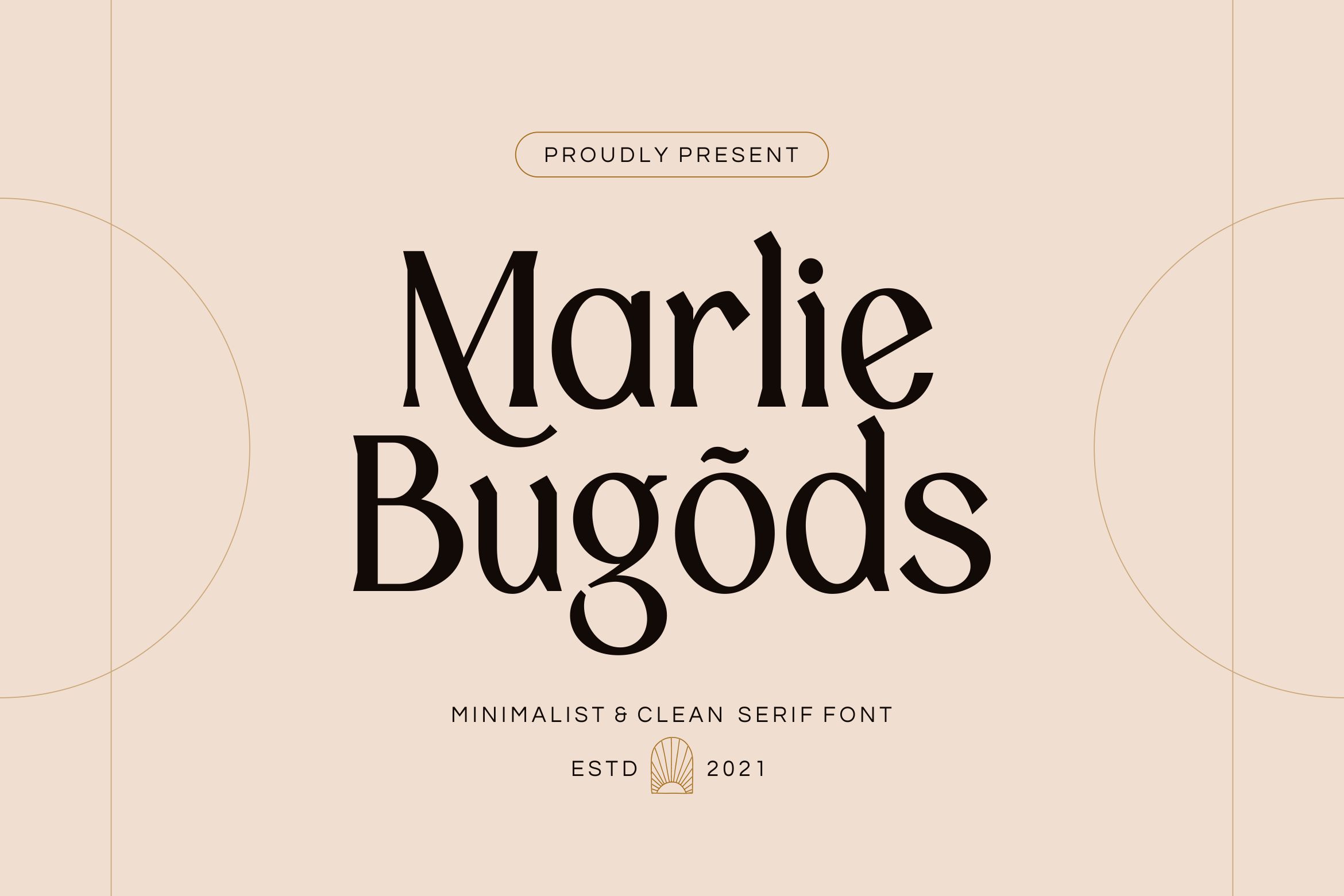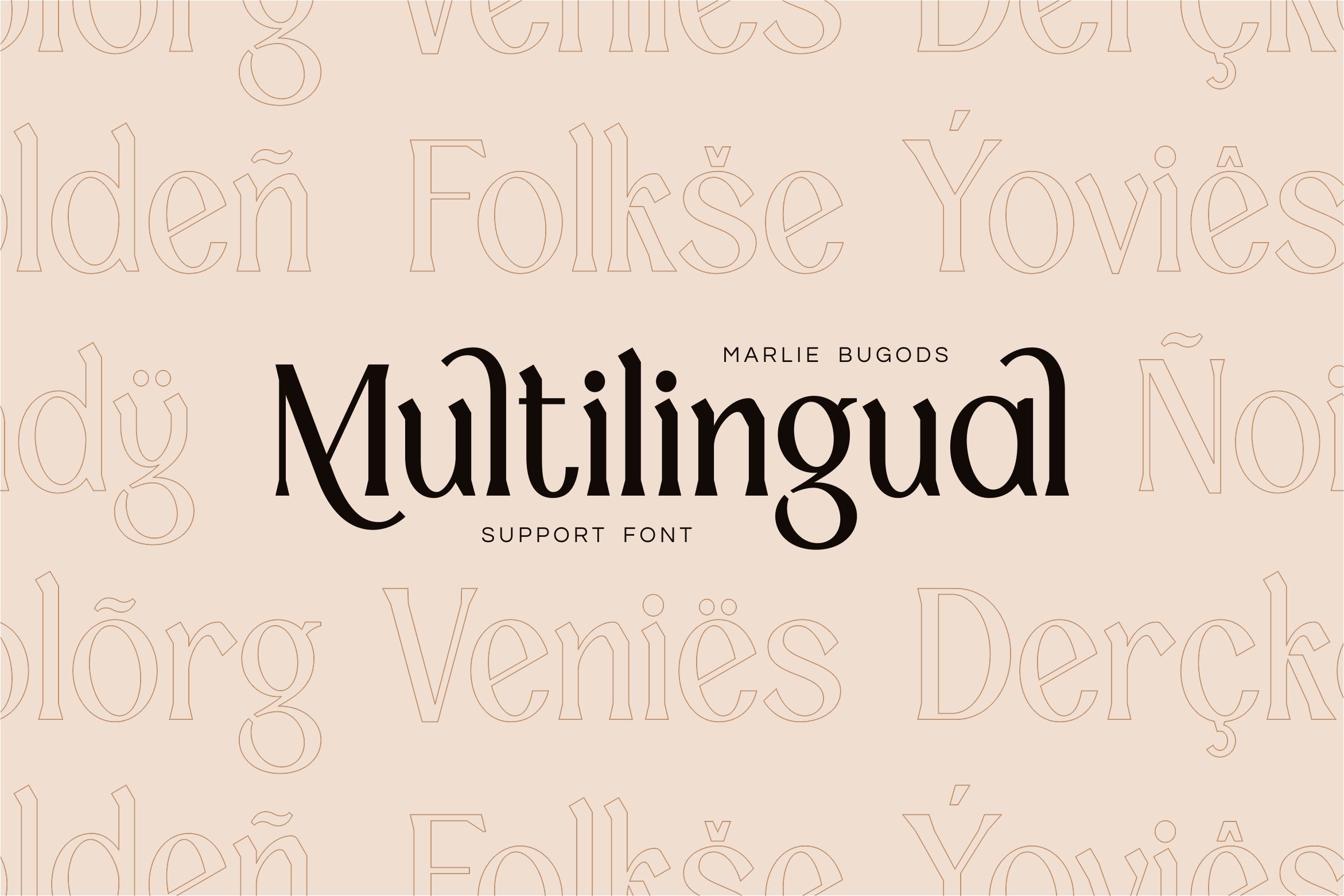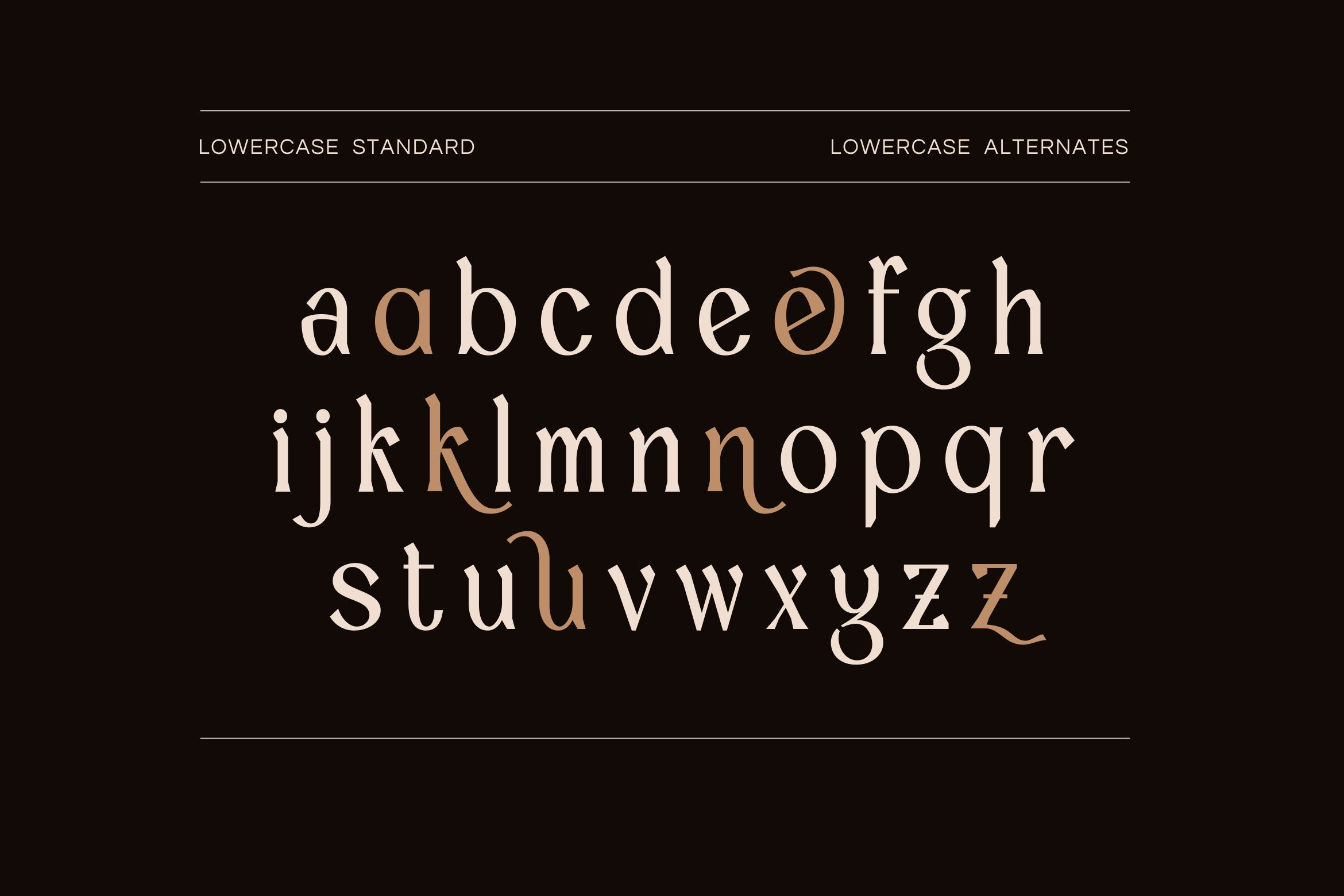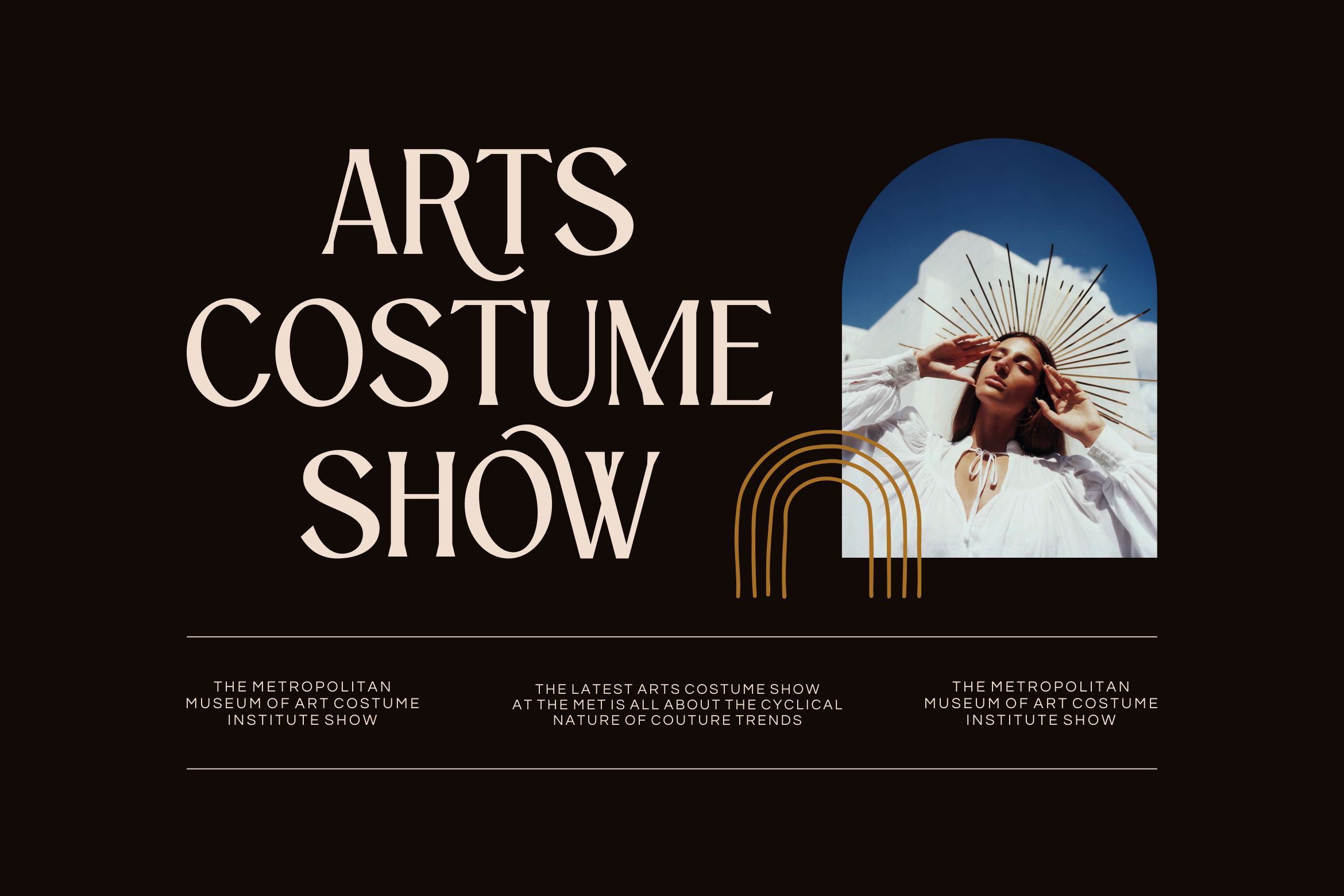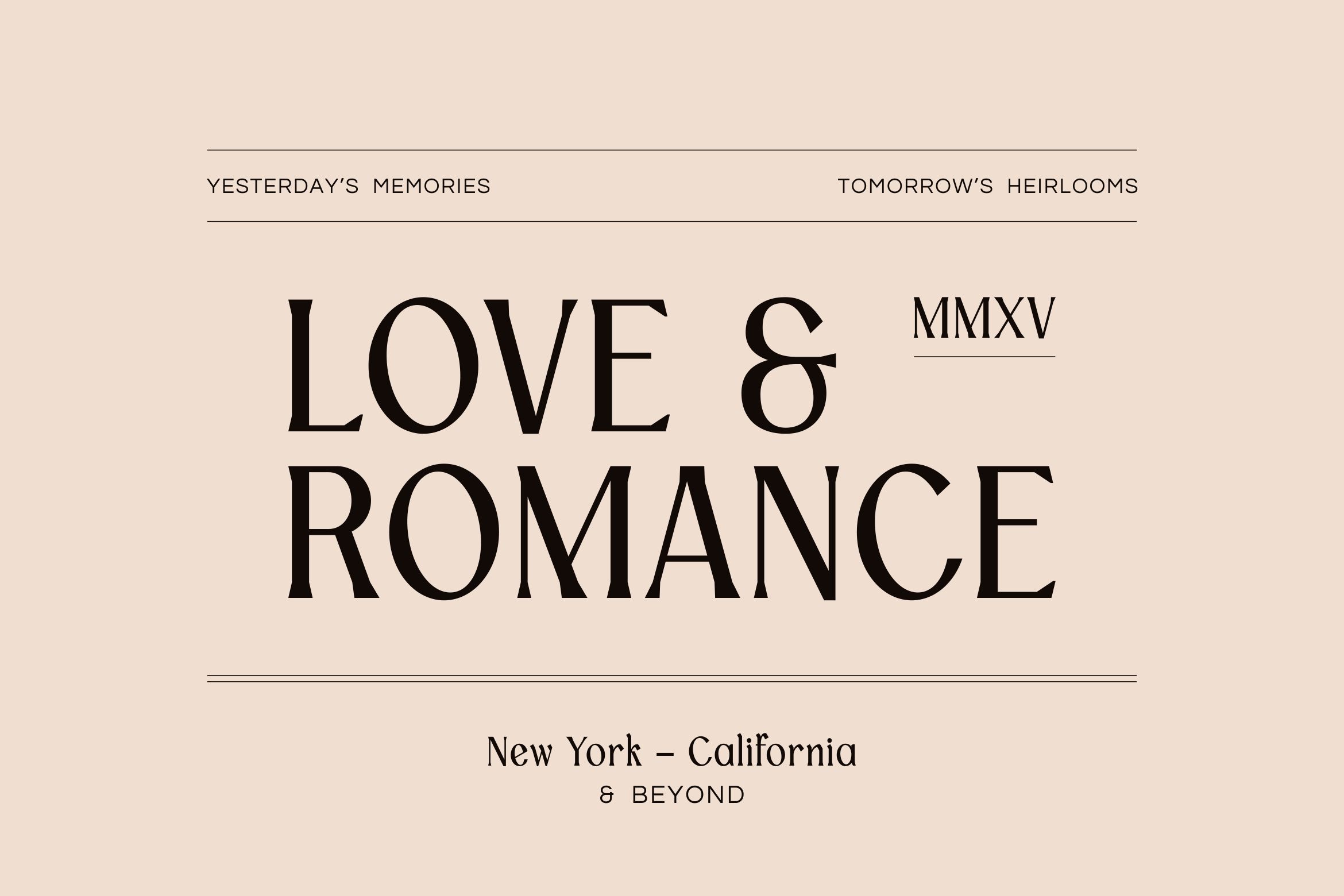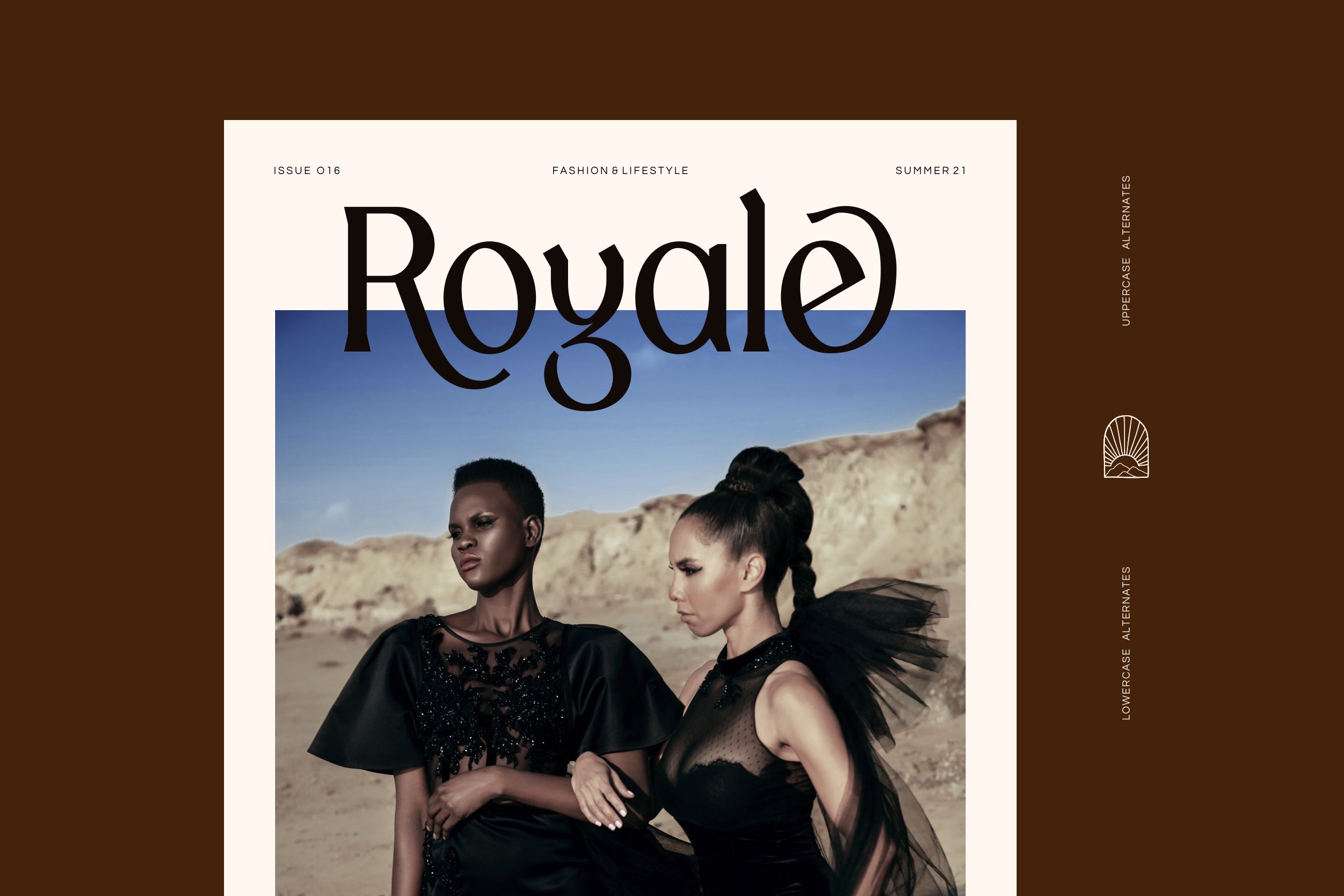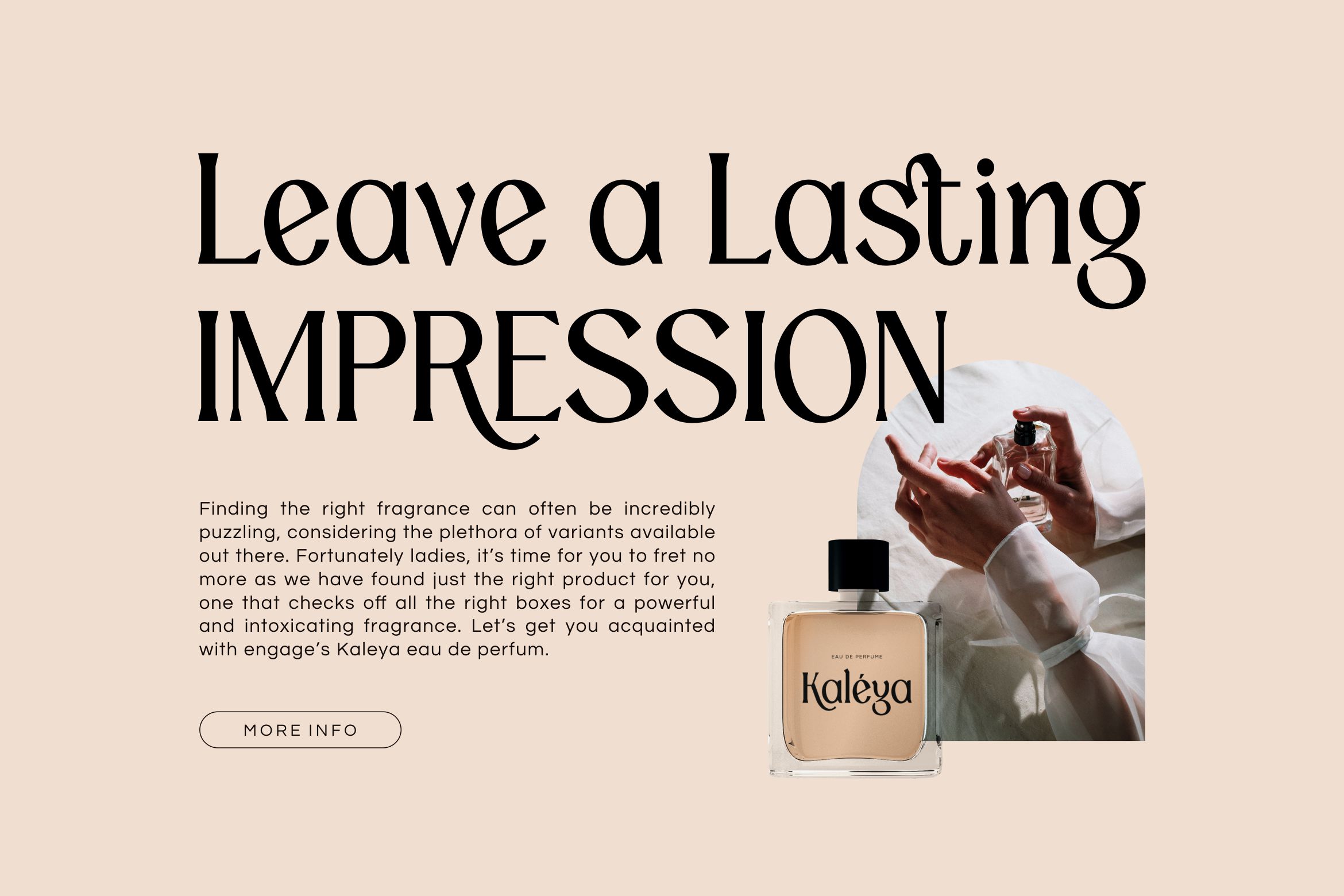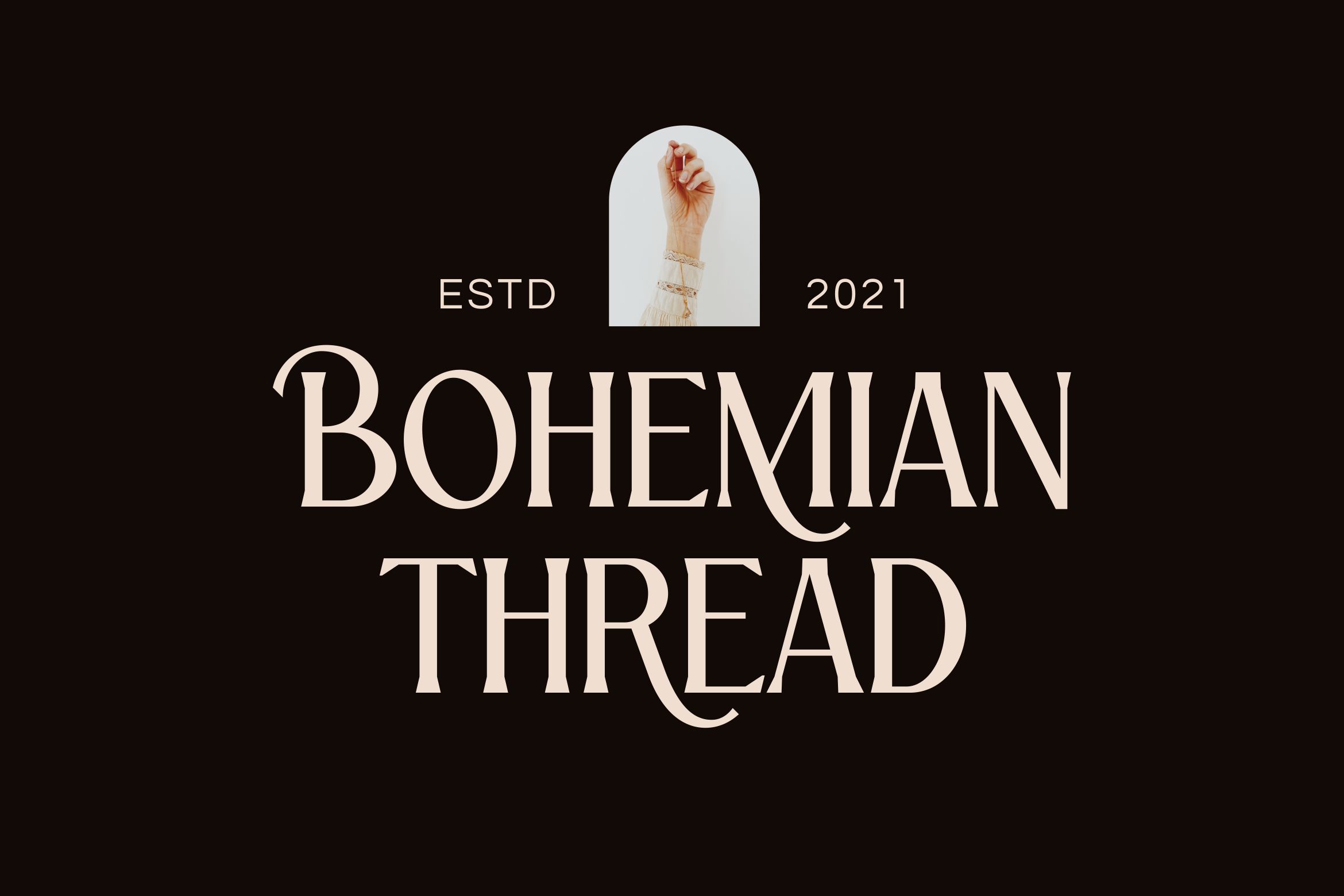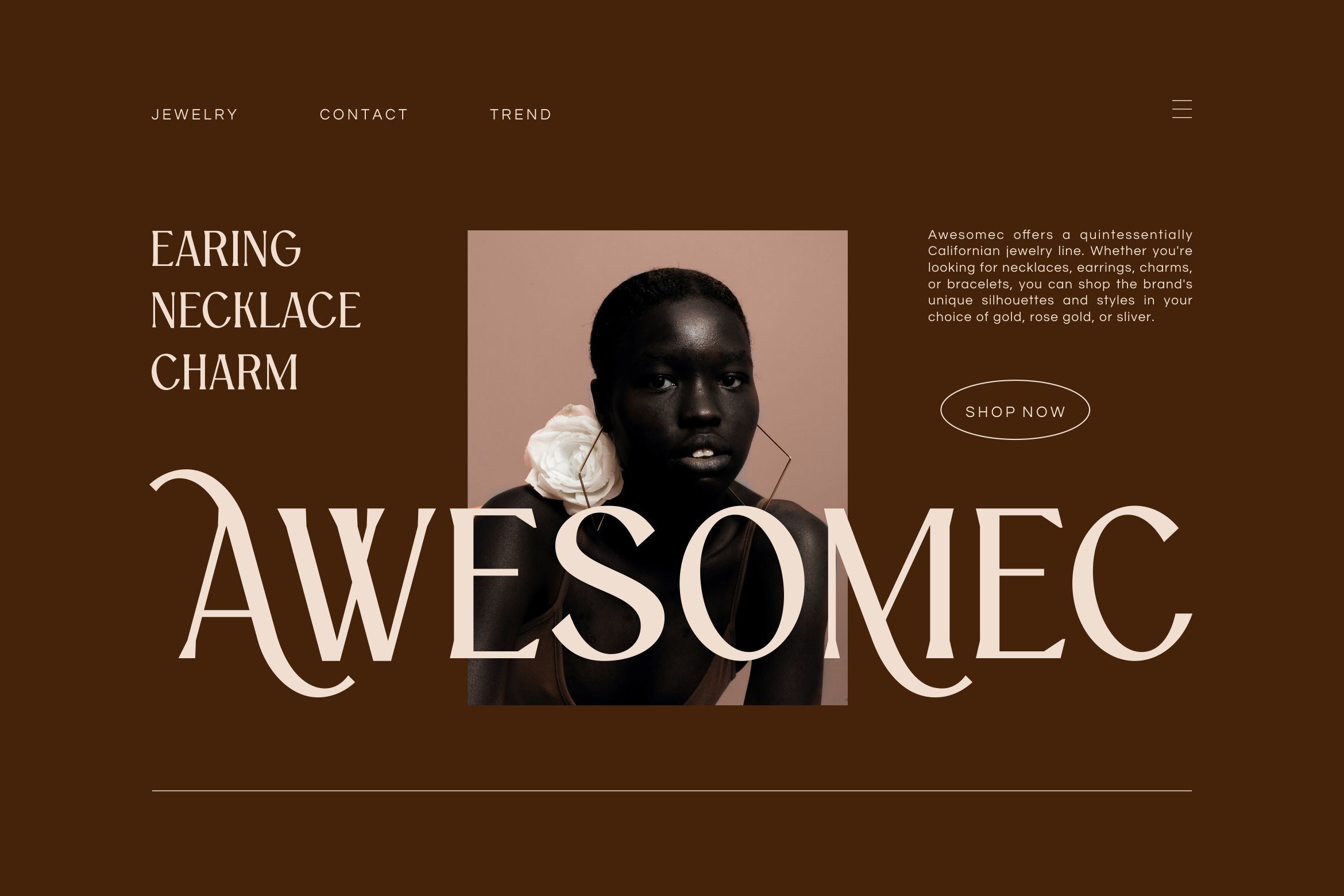
Marlie Bugods
Introducing Marlie Bugods, a minimalist and clean serif font that blends classic elegance with a touch of modern flair. Designed with refined letterforms and unique alternate characters, this font offers both beauty and versatility, making it a perfect fit for fashion, editorial, branding, and high-end packaging design. The smooth curves and sharp serifs give each letter a stylish personality while remaining highly legible.
Marlie Bugods includes multilingual support, uppercase and lowercase alternates, and is optimized for both display and print use. Whether you’re crafting a logo, magazine headline, or a luxury brand identity, this typeface delivers sophistication and impact in every context. Elevate your designs with the timeless charm of Marlie Bugods.